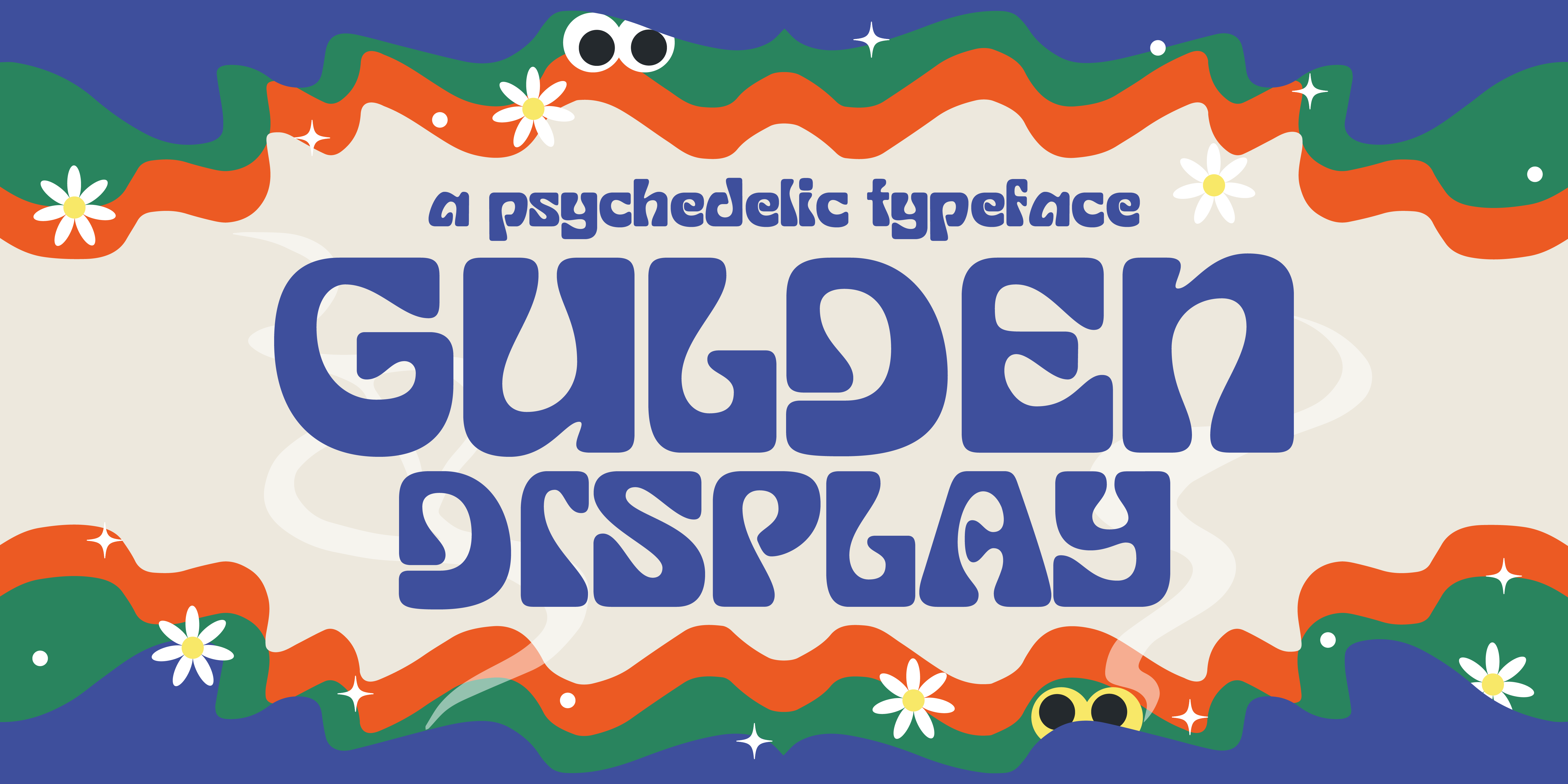
Gulden Display Font Free Download is a bold and psychedelic typeface perfect for designers seeking a vibrant, unconventional aesthetic. Please note that you must purchase this font for commercial use. You can download it for free for testing purposes. This font excels in applications like album covers, concert posters, event flyers, and creative branding, where its swirling, abstract shapes create a trippy vibe. Its dynamic and eye-catching design makes it exciting, offering a unique, otherworldly style that captivates audiences. The Gulden Display Font family includes Regular, Headline, and Condensed styles, providing versatile options for bold projects.
Transform your designs with Gulden Display Font Free Download, a typeface crafted by Studio Gulden in Yogyakarta, Indonesia, to add a psychedelic flair to creative work. Its swirling patterns and bold letterforms make it ideal for music-related graphics, festival promotions, or artistic logos, evoking the free-spirited energy of the 1960s and 70s. Available on platforms like fontesk.com and linotype.com, this font ensures readability while delivering a striking visual impact. Whether you’re designing a poster for a retro-themed event or a logo for an avant-garde brand, Gulden Display Font brings a playful, unconventional edge. Its versatility across print and digital media allows for cohesive, attention-grabbing designs. The font’s abstract aesthetic sparks creativity, making it a favorite for designers aiming to push boundaries. Download it today to explore its trippy potential and infuse your projects with a bold, psychedelic energy that leaves a lasting impression.